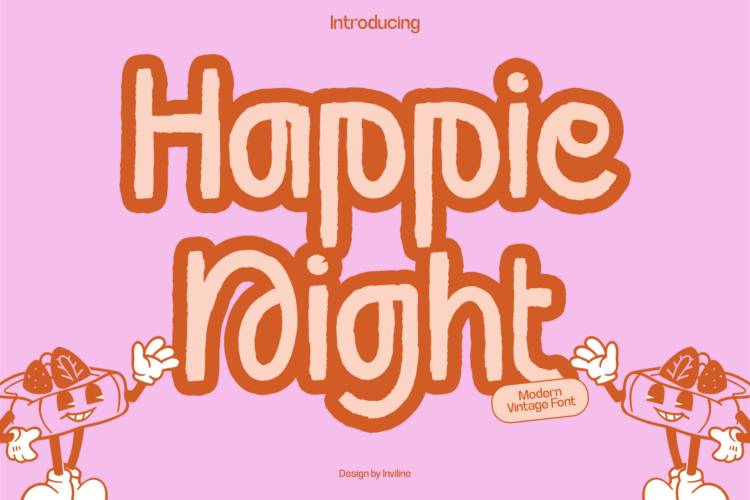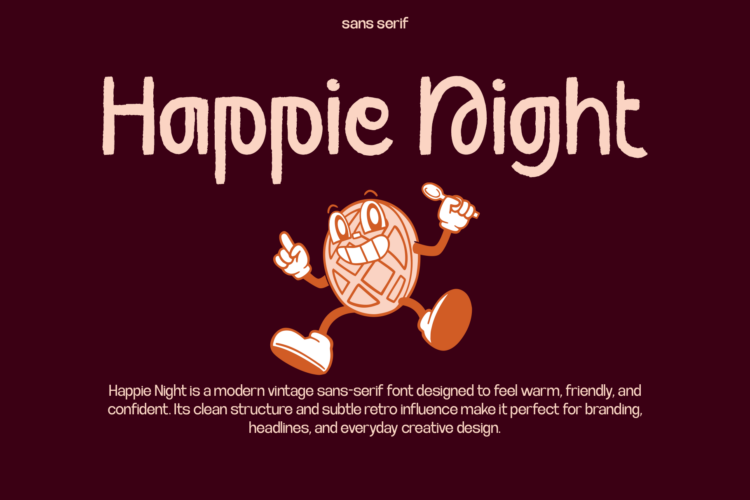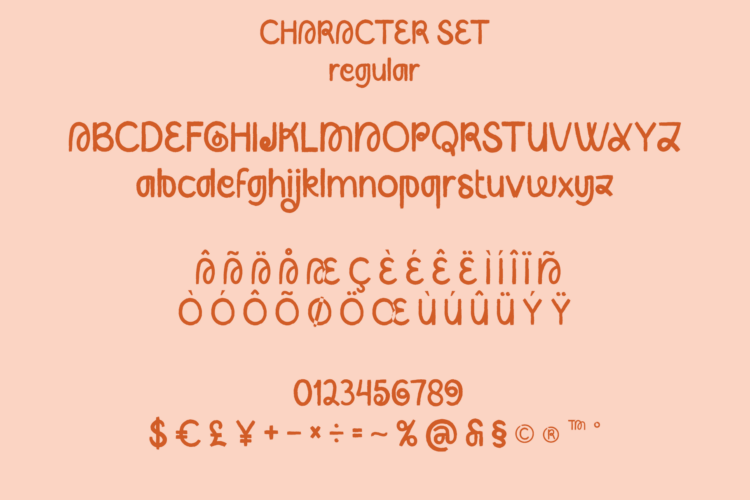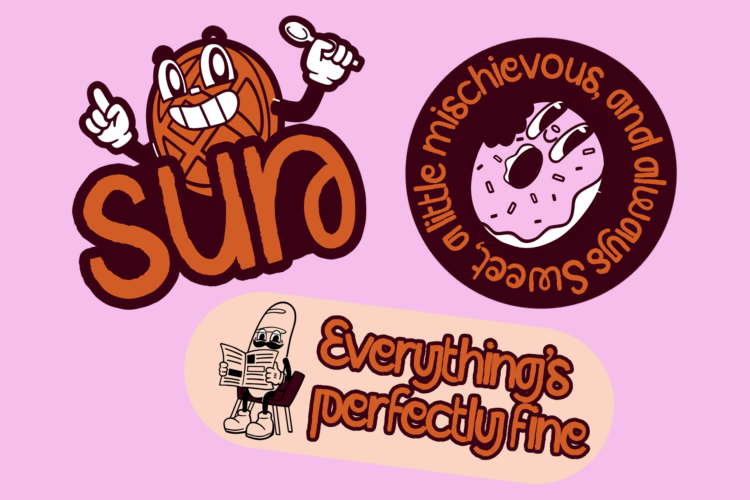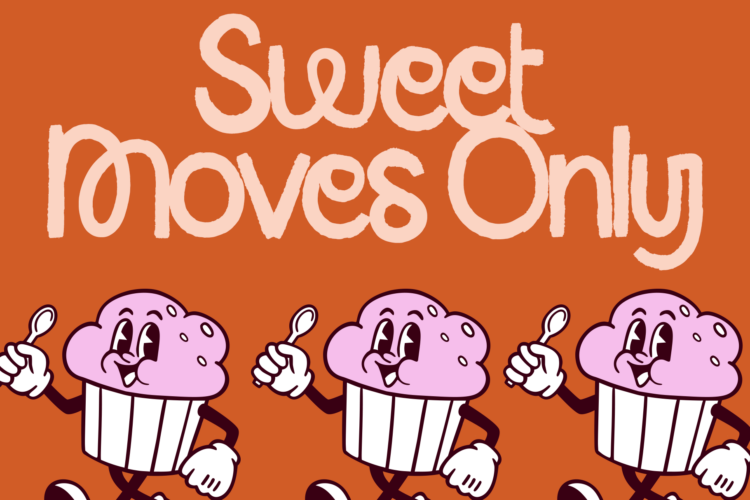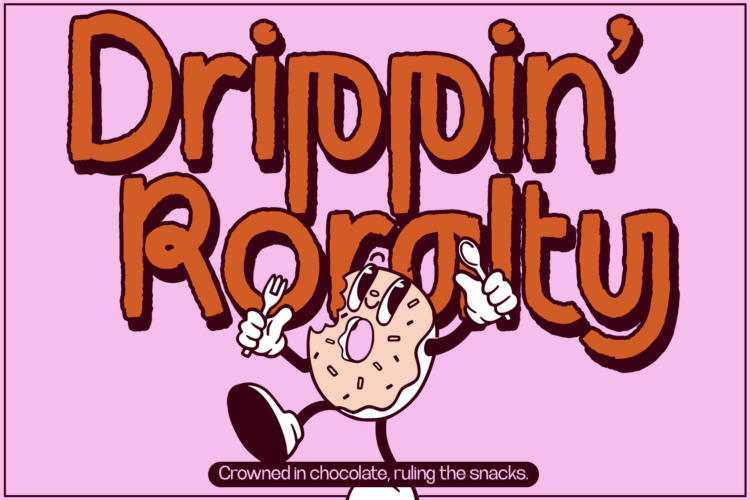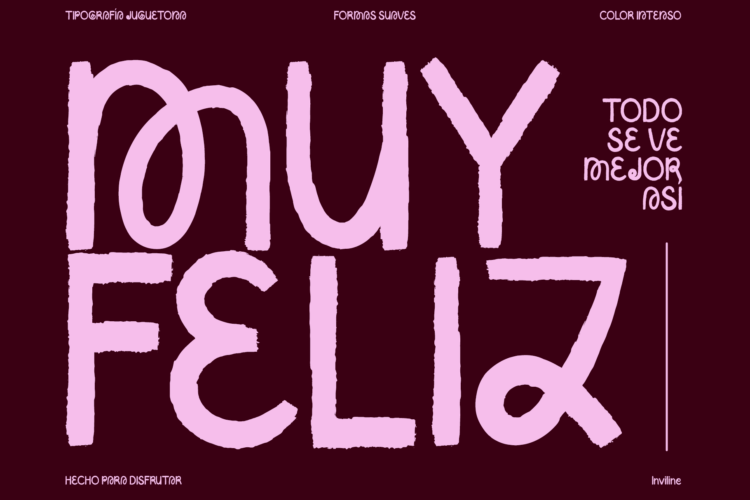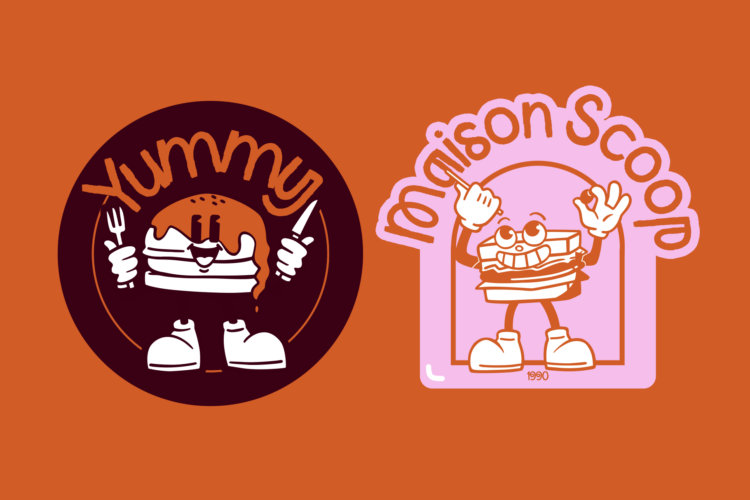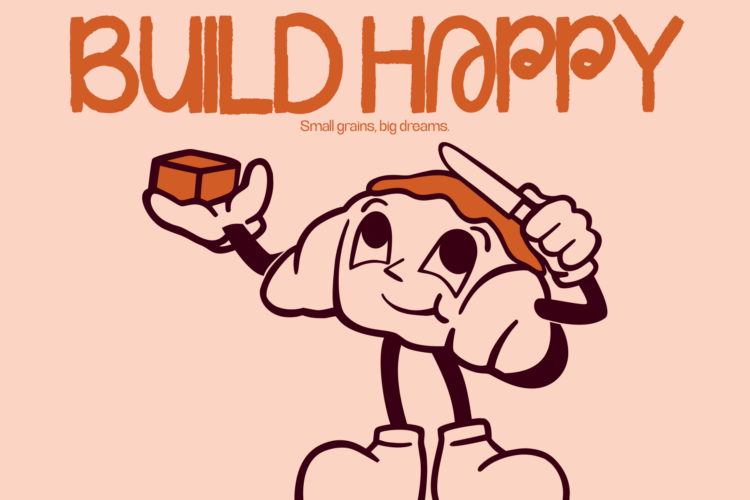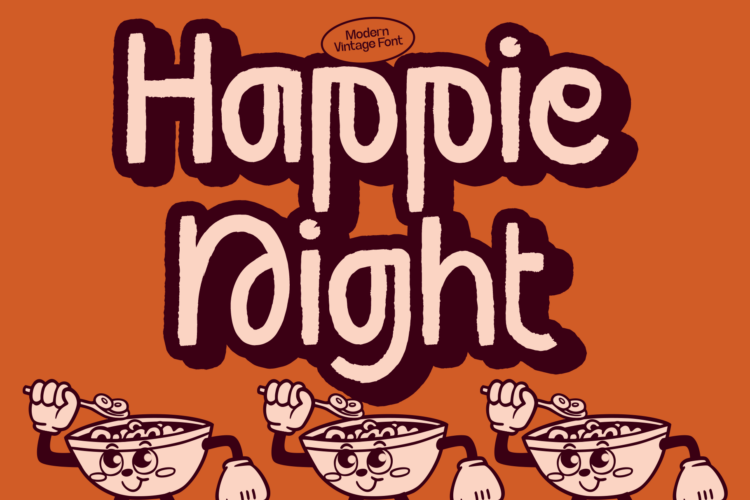
Happie Night – Playful Display Font
Happie Night is a playful display font with bold, rounded shapes and a cheerful modern-vintage feel, designed to bring warmth, fun, and personality into your designs. Its bubbly letterforms and hand-drawn charm make it perfect for eye-catching headlines, branding, packaging, posters, kids-friendly visuals, stickers, café menus, and social media content. Happie Night balances bold presence with friendly expression, helping your designs stand out while staying approachable, joyful, and memorable.
- Smooth Brush Texture
- Handcrafted Look
- Retro Playful Vibe